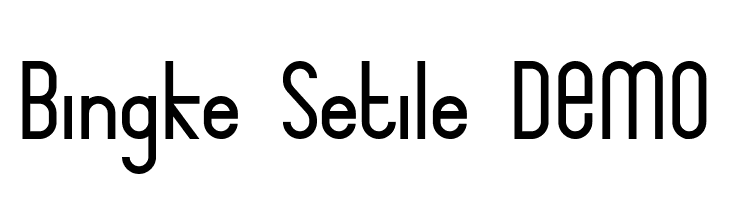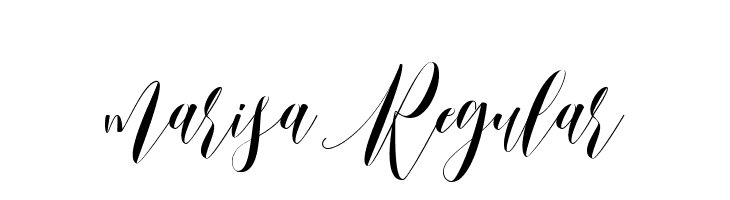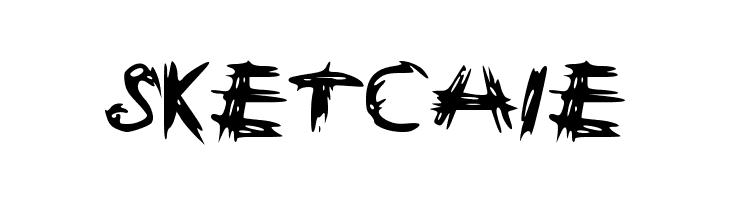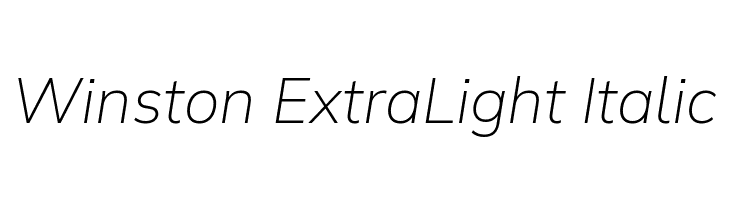
A sleek, extra light italic font with a modern and elegant design.
A bold, italicized outline font with a futuristic and dynamic style.
A modern, geometric font with tall, narrow characters and a sleek design.
A modern, geometric font with clean lines and a futuristic style.
A bold, textured font with a vintage, distressed look.
A playful, decorative font with unique curls and loops, inspired by traditional Indian art.
A bold, italic font with a dynamic slant and strong presence.
A modern, thin sans-serif font with semi-expanded width and elegant strokes.
A bold, decorative font with merman-themed characters and thick outlines.
An elegant, cursive script font with fluid connections and dynamic contrast.